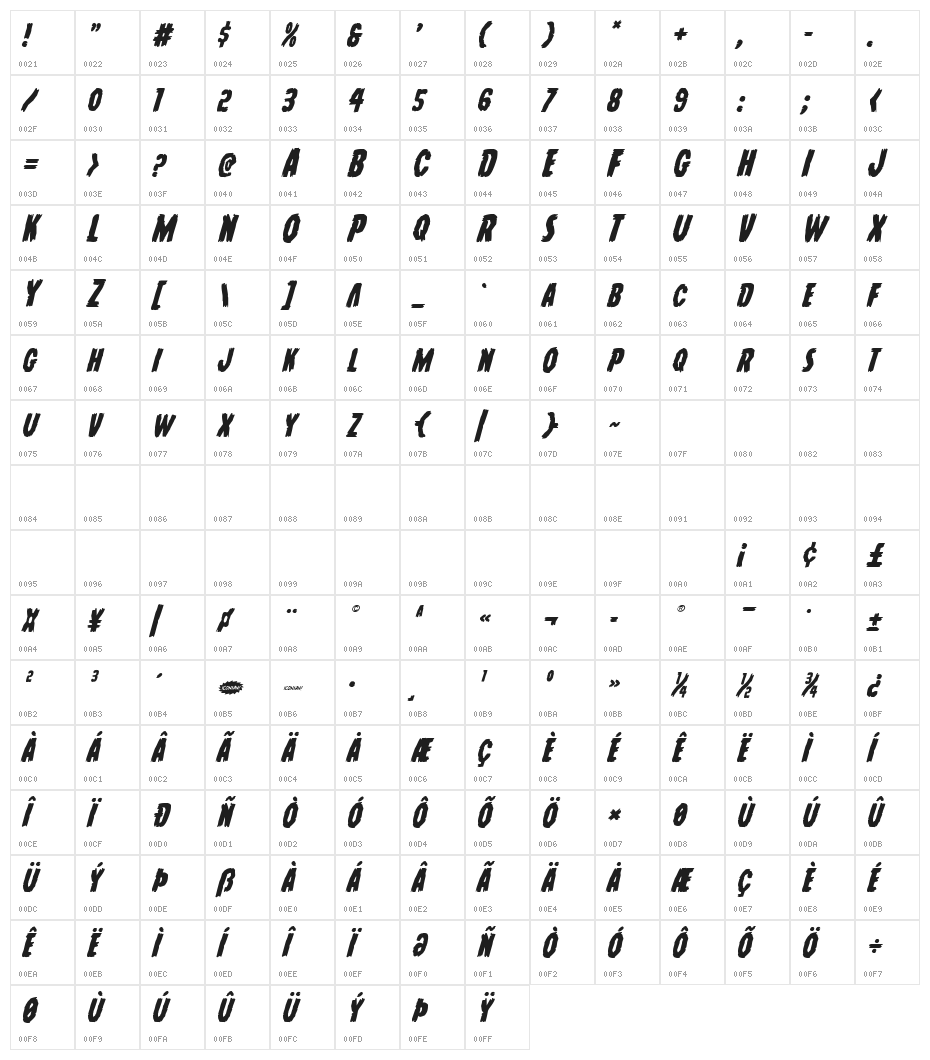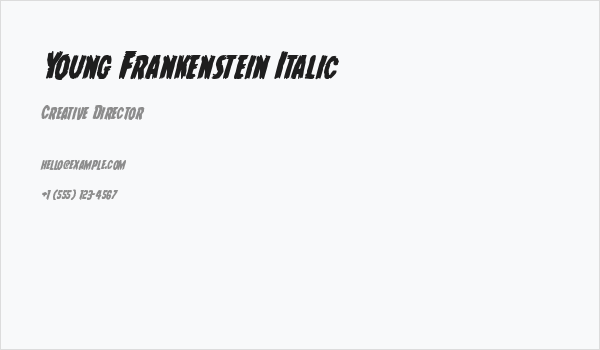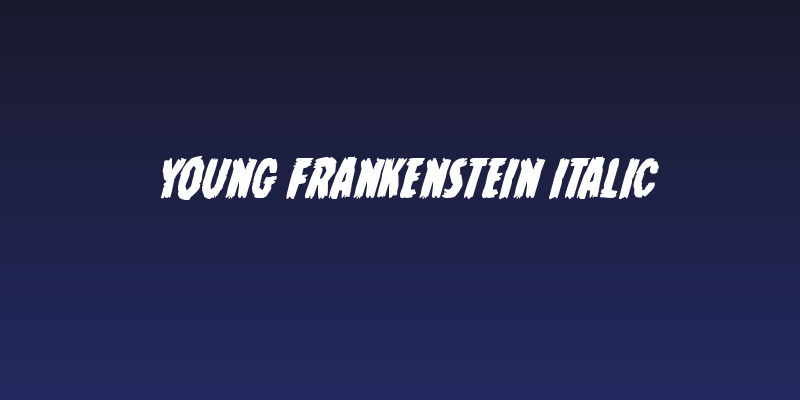
Young Frankenstein Italic Font
Young Frankenstein Italic Description
This font features a bold and dramatic style with a distinct italic slant, giving it a dynamic and energetic appearance. The characters are heavily stylized with rough, jagged edges that create a sense of movement and intensity. The uppercase and lowercase letters maintain a consistent design, with exaggerated strokes and a slightly condensed form. Numbers and special characters follow the same bold and expressive style, making them stand out prominently. This font is ideal for projects that require a strong visual impact and a touch of theatrical flair.
| Overall Style | Dramatic, Energetic, Expressive |
| Use Case | Headlines, Posters, Themed Events |
| Proposed Projects | Perfect for movie posters, horror-themed events, Halloween invitations, or any project needing a bold, eye-catching typeface. |